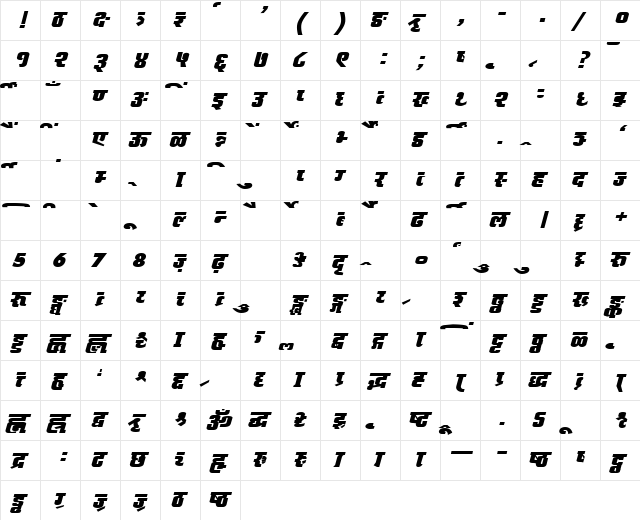
AkrutiDevAkshardharaExtBold Italic Font Preview
Design Context for AkrutiDevAkshardharaExtBold Typeface
AkrutiDevAkshardharaExtBold takes a measured approach to typography — its balanced proportions and neutral character make it a reliable workhorse for both digital and print work. The dynamic lean of this cut emphasises speed and emphasis in any layout. Its bold stroke weight gives it real presence on the page.
Pro Tip: Try AkrutiDevAkshardharaExtBold for annotation and caption copy alongside an upright companion — the contrast in angle creates a dynamic but ordered typographic system.